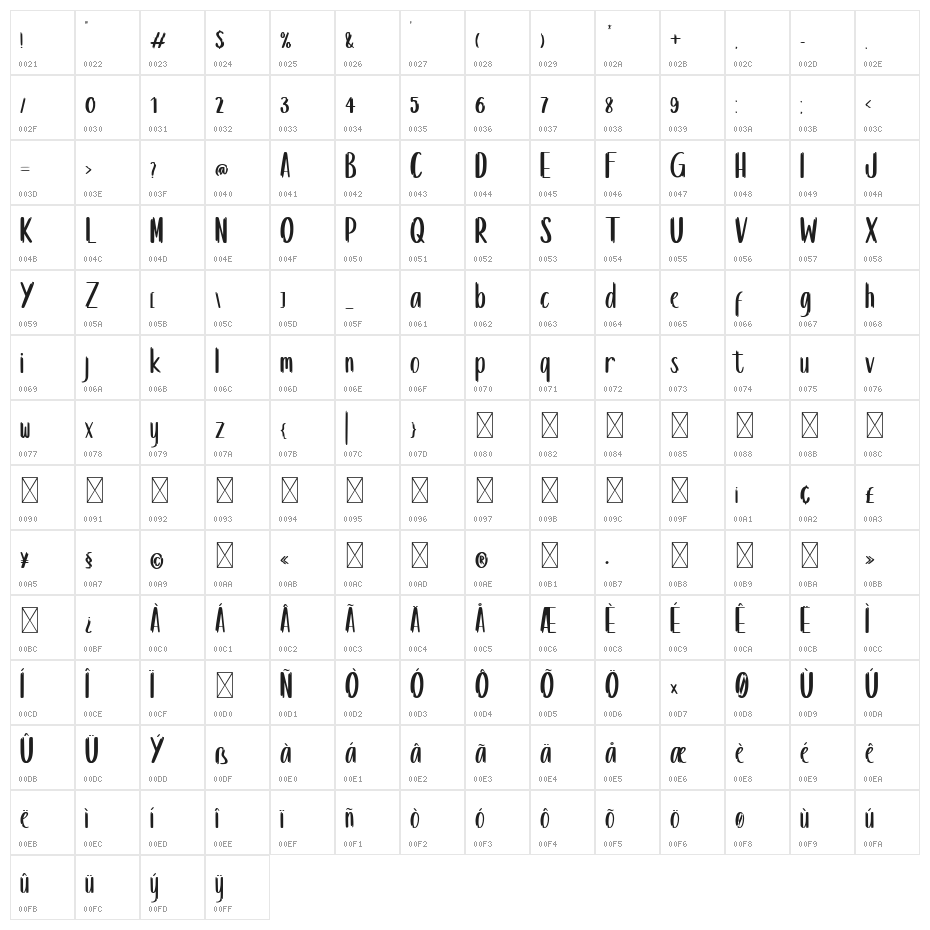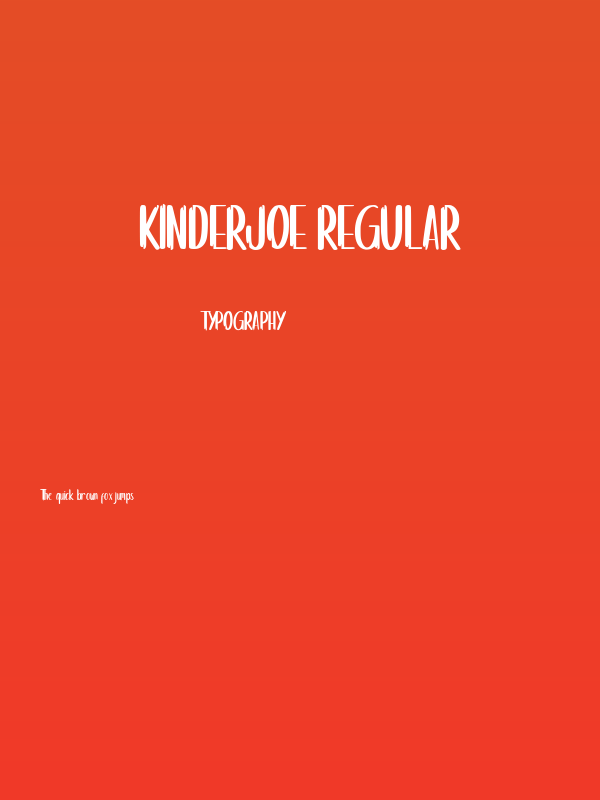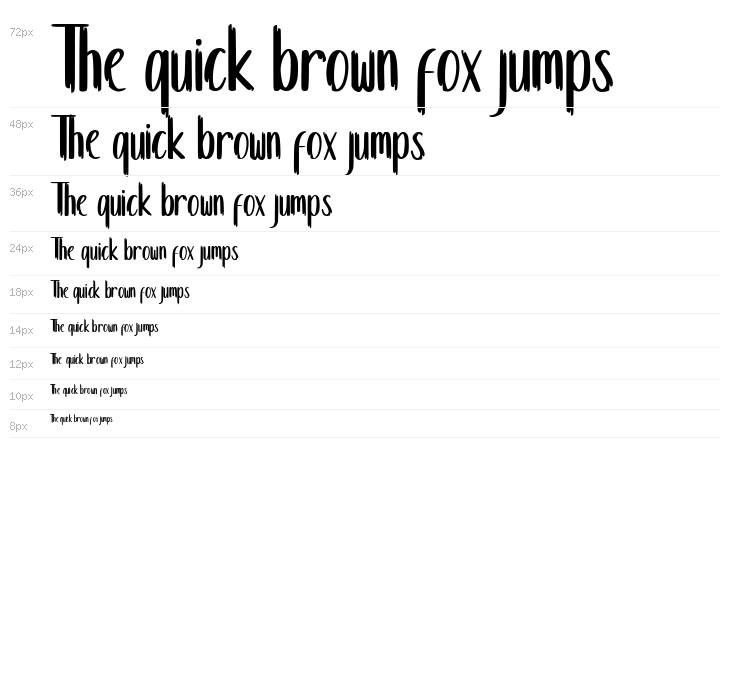
Kinderjoe Regular Font
Kinderjoe Regular Description
This font features a playful and bold style with a handwritten appearance. The letters are tall and slightly condensed, giving a sense of energy and movement. The strokes are thick and consistent, with a slight variance that adds a casual and friendly feel. The uppercase and lowercase letters maintain a cohesive look, while the numerals and special characters complement the overall design. This font is suitable for projects that require a fun and approachable aesthetic, such as children's books, playful branding, or informal invitations.
| Proposed Projects | Ideal for children's books, playful branding, informal invitations, and creative posters. |